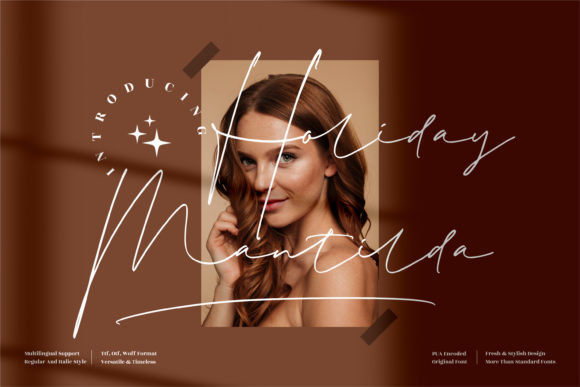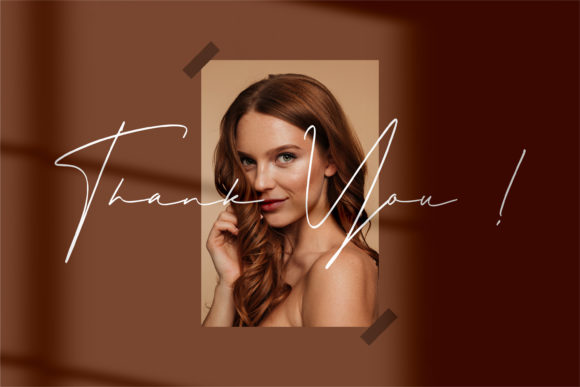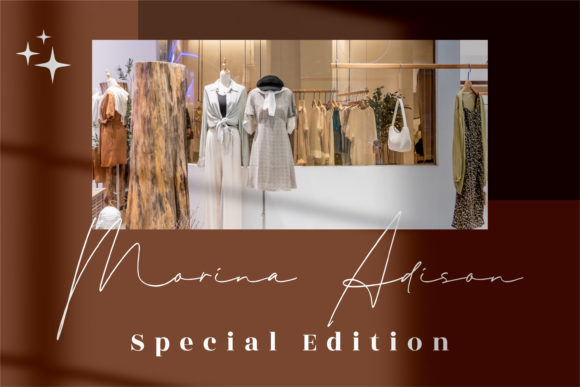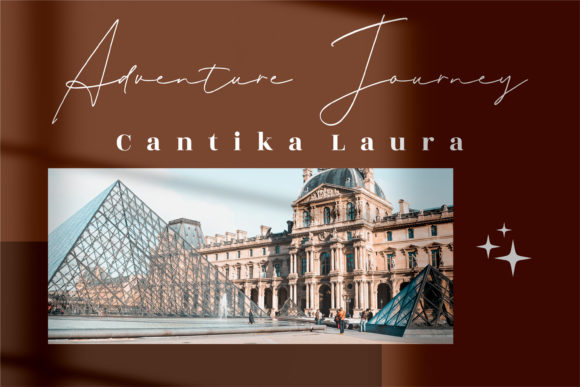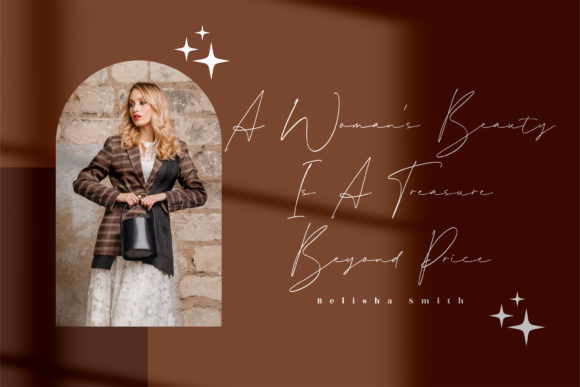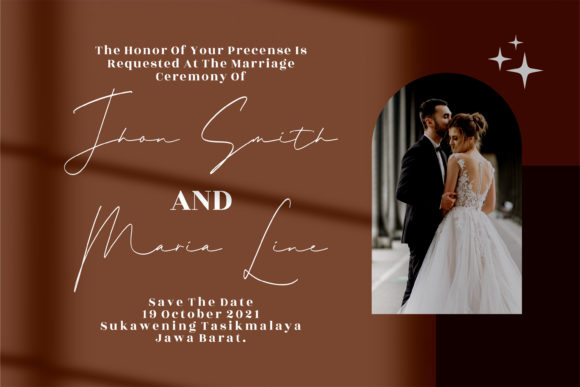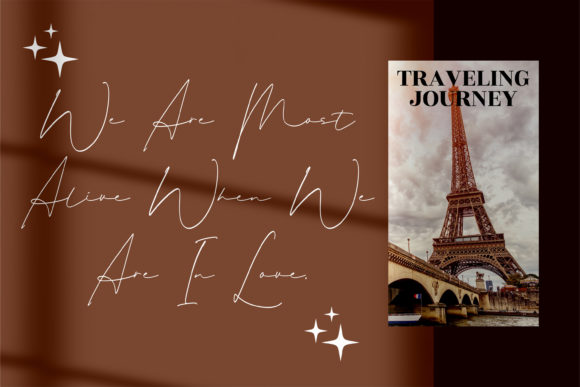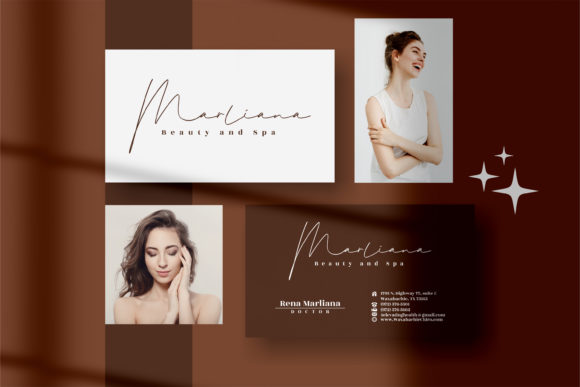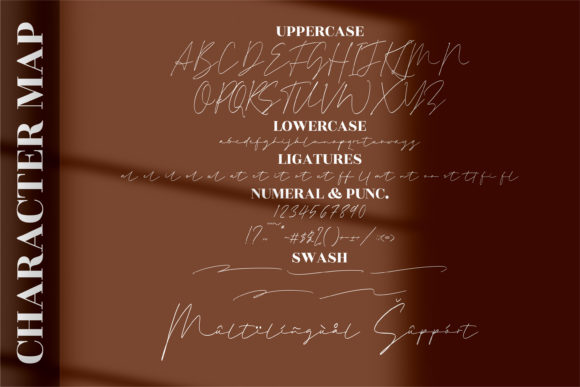
Holiday Mantilda Font
Holiday Mantilda is a premium signature font with a romantic feel. It will be sure to add an elegant, luxurious touch to any of your projects!